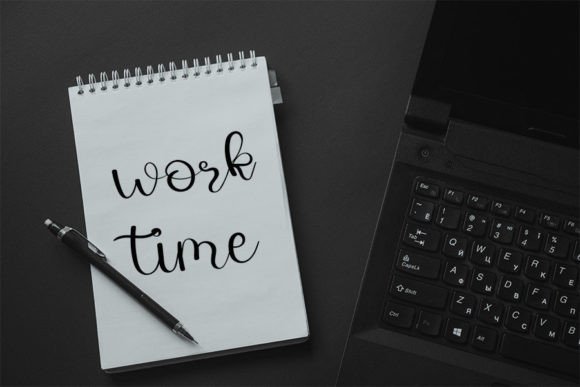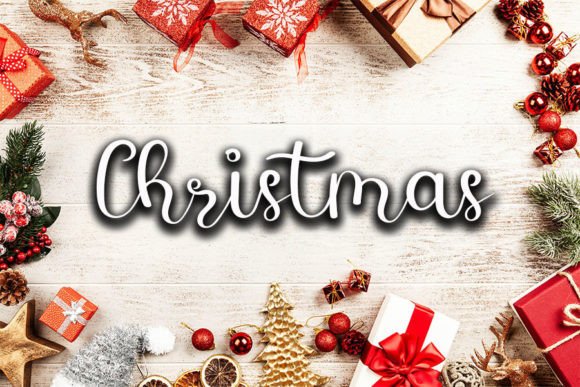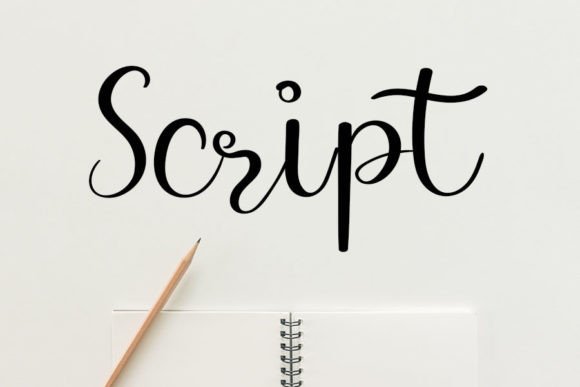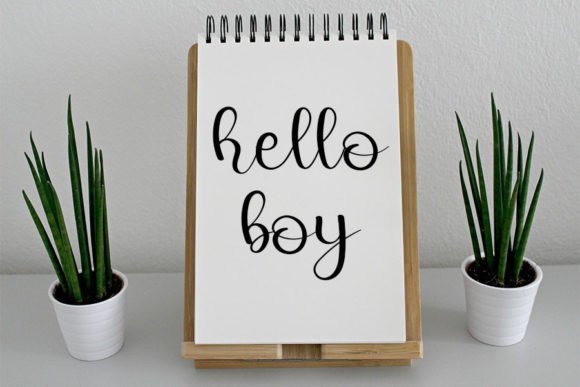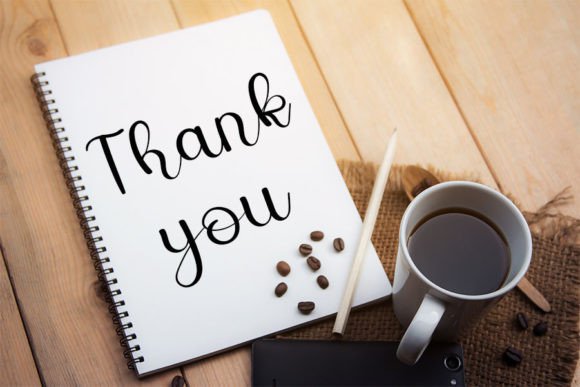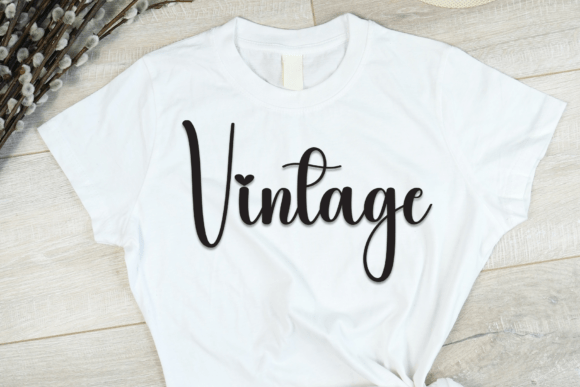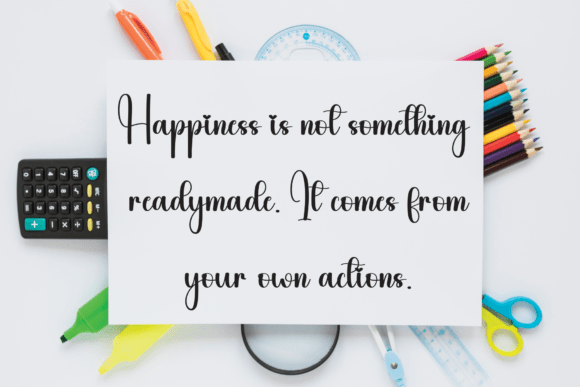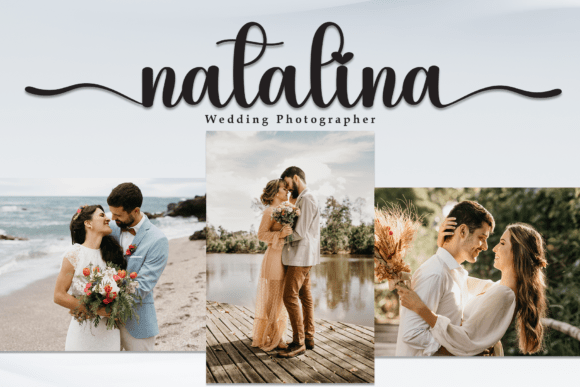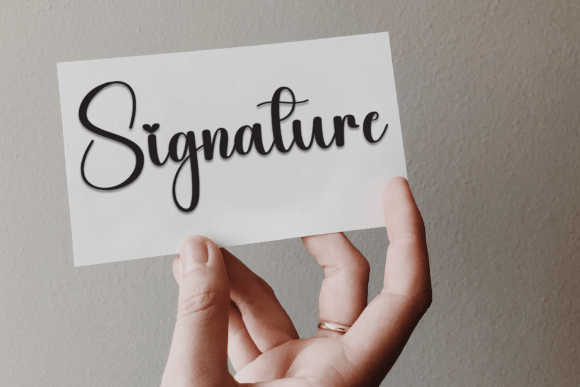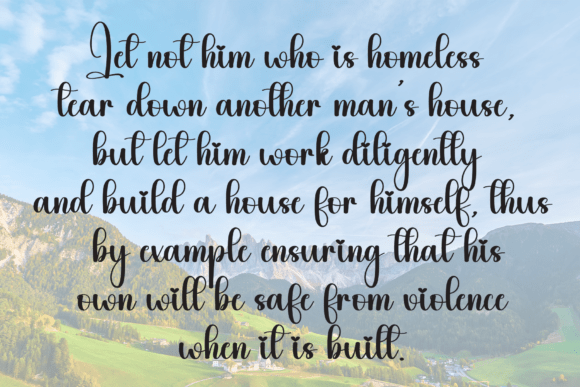
Introducing Angela Font: The Perfect Blend of Personality and Charm
In the world of typography, few fonts manage to capture the essence of real handwriting while still being bold and eye-catching. Angela Font is one such gem that bursts with personality and charm, making it an ideal choice for designers and crafters looking to add a personal touch to their creations. This display handwritten font is designed to stand out while maintaining a natural flow, perfect for a wide range of applications, from logos and social media graphics to posters and more.
The Unique Characteristics of Angela Font
Angela Font is more than just a typeface; it’s a way to infuse your designs with a sense of warmth and authenticity. Its bold, eye-catching strokes are reminiscent of real handwriting, giving your text a personal and expressive feel. The font’s natural flow ensures that it remains legible and aesthetically pleasing, whether you’re using it for a headline, a quote, or a product description.
One of the key benefits of Angela Font is its versatility. It’s suitable for a wide range of design projects, including:
- Logos: Create a memorable brand identity with a logo that stands out. Angela Font’s unique charm and personality make it perfect for crafting a logo that reflects your brand’s values and aesthetic.
- Social Media Graphics: Elevate your social media presence with eye-catching graphics that showcase your brand’s personality. From Facebook posts to Instagram stories, Angela Font can help you create engaging content that resonates with your audience.
- Posters: Whether you’re promoting an event, a product, or a service, Angela Font can help you create a poster that grabs attention and communicates your message effectively.
- Branding and Packaging: Add a personal touch to your branding and packaging with Angela Font. Its authentic and expressive feel makes it perfect for product labels, packaging, and other marketing materials.
Bringing Authenticity and Flair to Your Design
In today’s competitive design landscape, it’s essential to create designs that stand out and resonate with your audience. Angela Font can help you achieve this goal by bringing authenticity and flair to your design. Its unique blend of personality and charm makes it perfect for designers and crafters who want to create:
- Heartfelt Quotes: Share inspiring quotes, lyrics, or poems with a font that adds a personal touch to your message.
- Creative Products: Showcase your products in a unique and eye-catching way with Angela Font. Its bold and expressive strokes can help you create product descriptions that stand out and engage your audience.
Why Choose Angela Font?
With so many fonts available, why choose Angela Font? Here are just a few reasons why designers and crafters love this display handwritten font:
- Unique Personality: Angela Font has a distinct personality that sets it apart from other fonts. Its bold and eye-catching strokes make it perfect for designs that need to stand out.
- Authentic Feel: This font captures the essence of real handwriting, giving your designs an authentic and personal feel.
- Versatility: Angela Font is suitable for a wide range of design projects, from logos and social media graphics to posters and packaging.
- Easy to Read: Despite its bold and expressive strokes, Angela Font remains legible and easy to read, making it perfect for designs that need to communicate a message effectively.
Angela Font is a versatile and expressive display handwritten font that’s perfect for designers and crafters looking to add a personal touch to their creations. Its unique blend of personality and charm makes it suitable for a wide range of design projects, from logos and social media graphics to posters and packaging. Whether you’re crafting a heartfelt quote or branding a creative product, Angela Font can help you bring authenticity and flair to your design. So why not give it a try and see how this amazing font can elevate your designs?